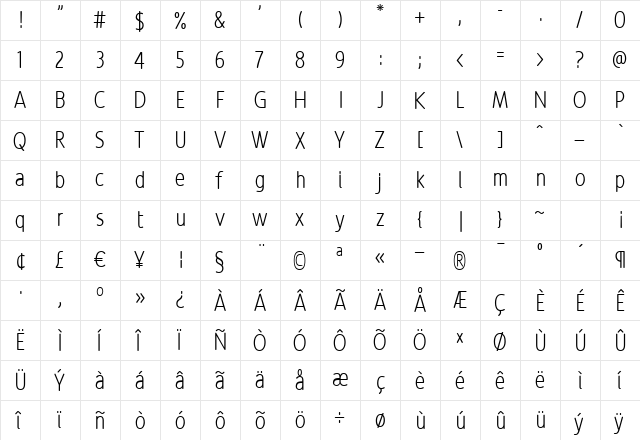
Revalo ModernLight Regular
Design Context for Revalo ModernLight Typeface
Revalo ModernLight takes a measured approach to typography — its balanced proportions and neutral character make it a reliable workhorse for both digital and print work. Its slender proportions lend an understated elegance to any composition.